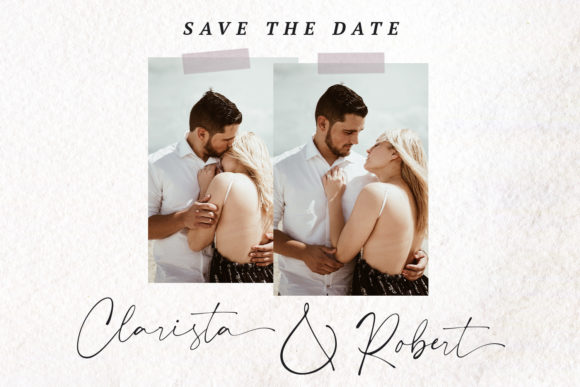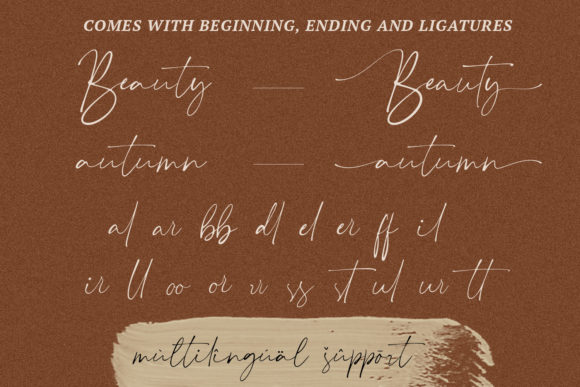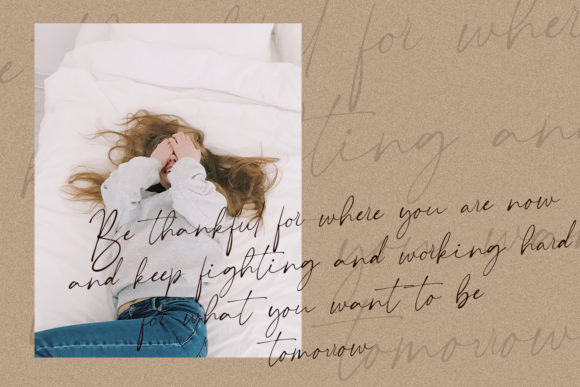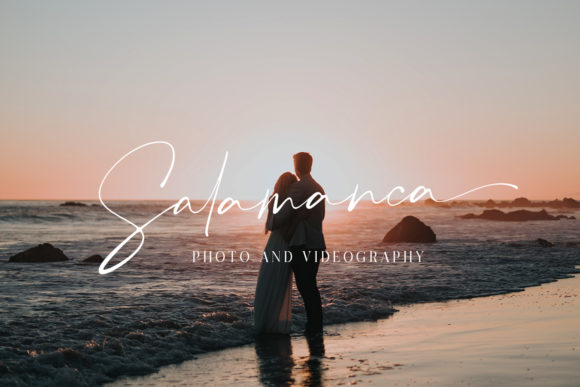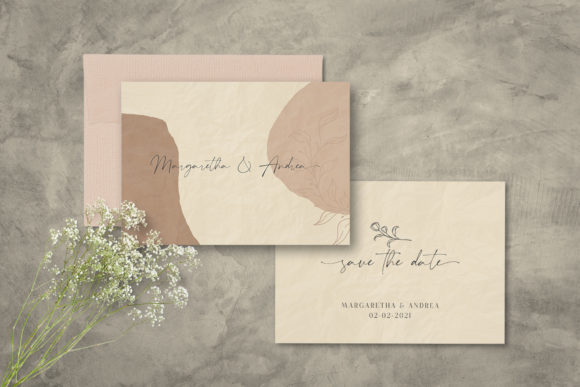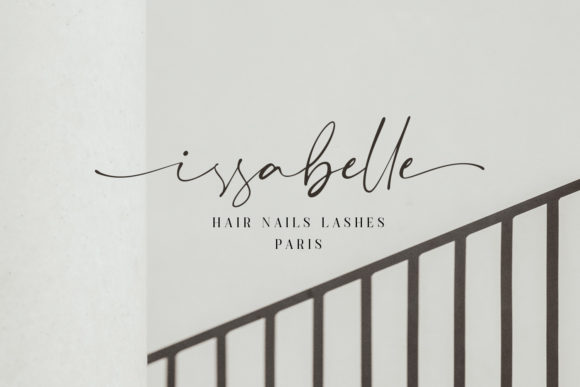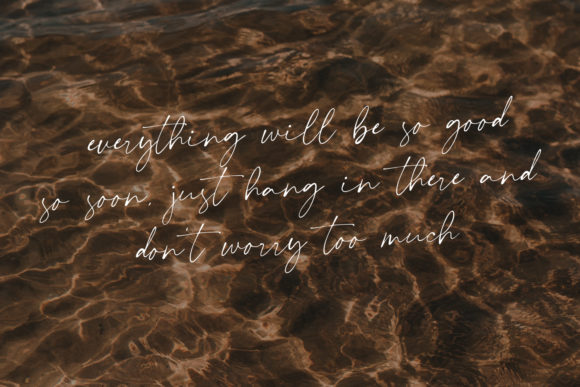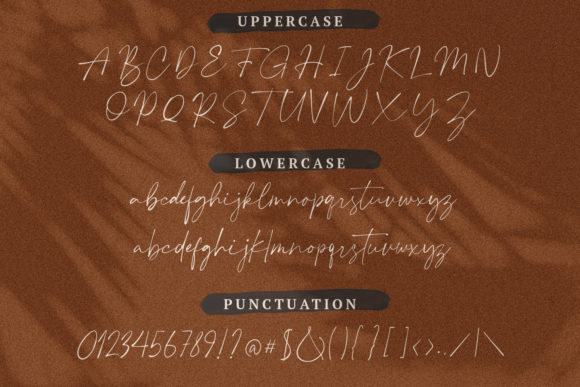
Plumrose Signature Font
About Plumrose Signature Font
Plumrose Signature is a relaxed and stylish handwritten font. Elegant and thin lettered, this font is ideal for enhancing your personal design projects.